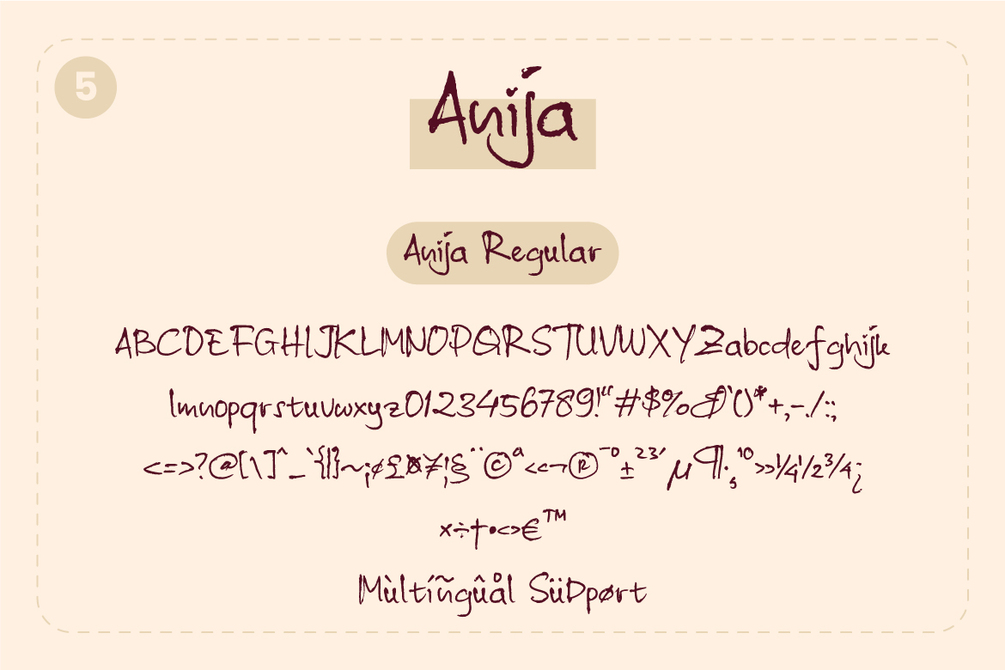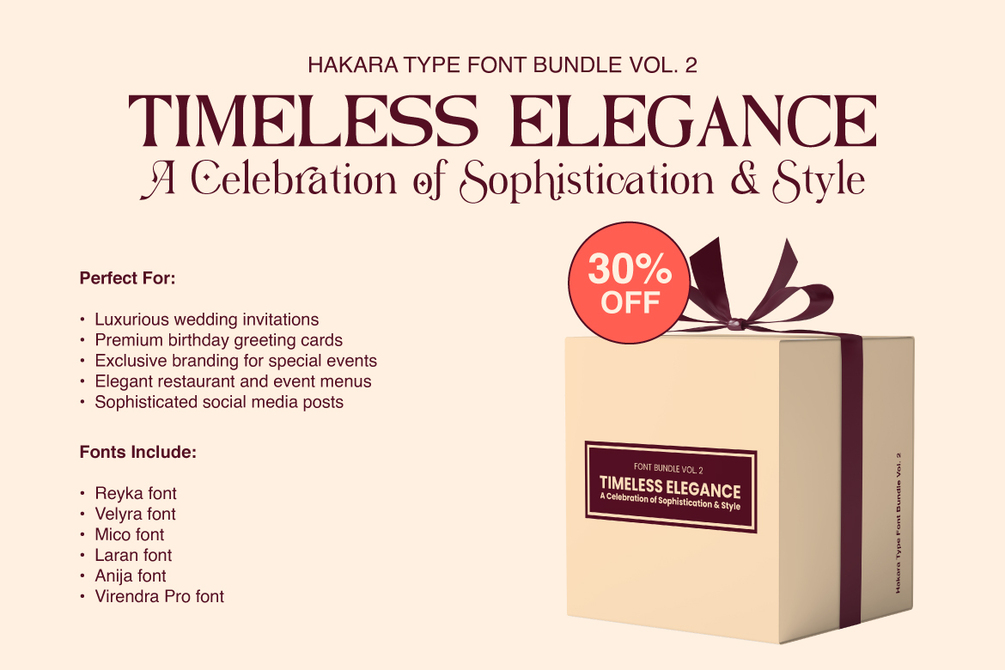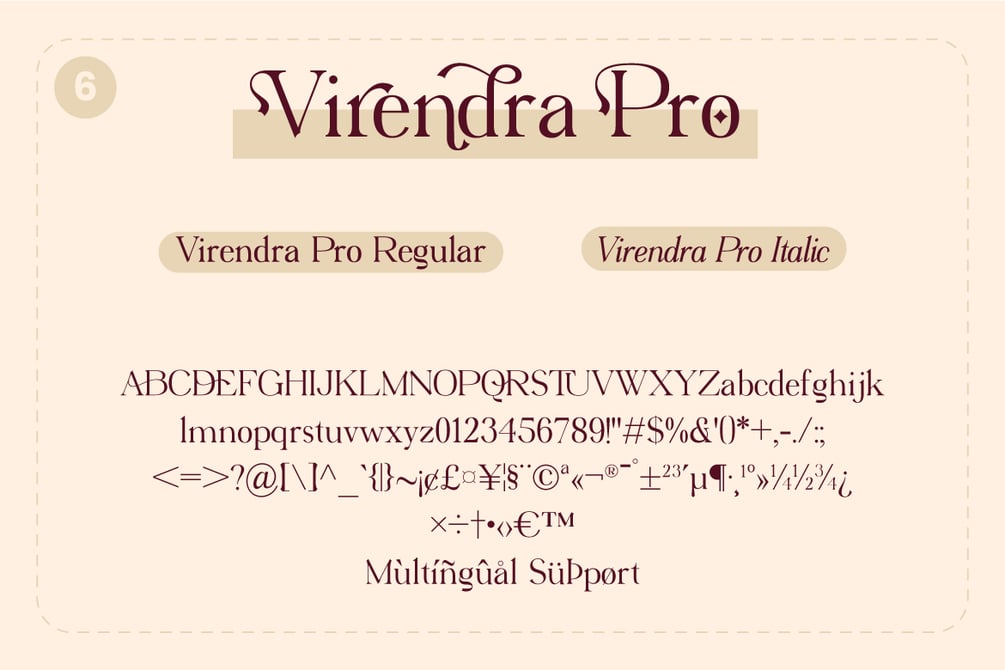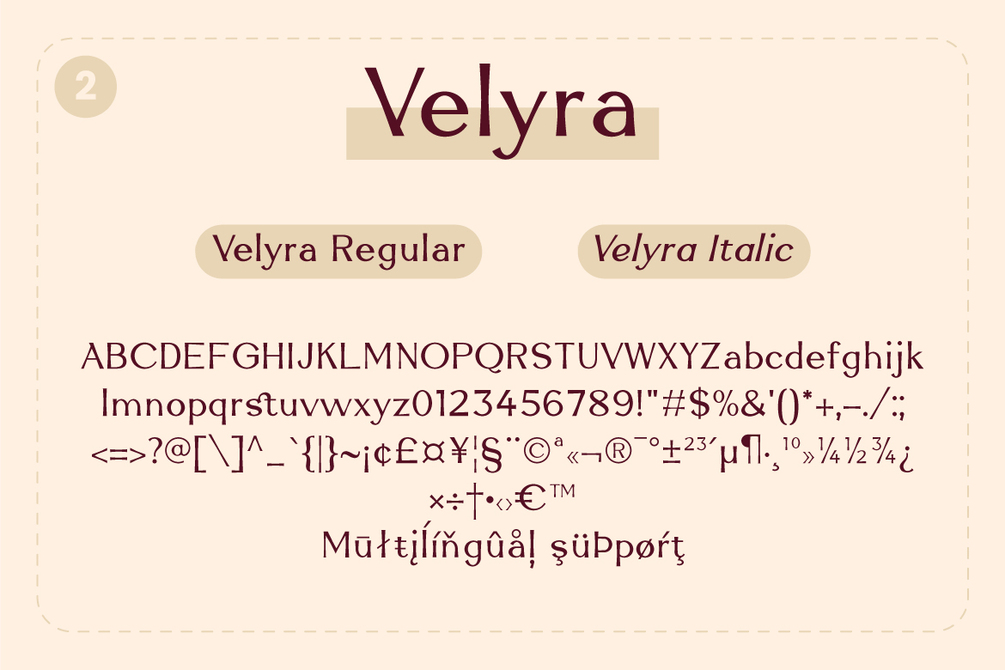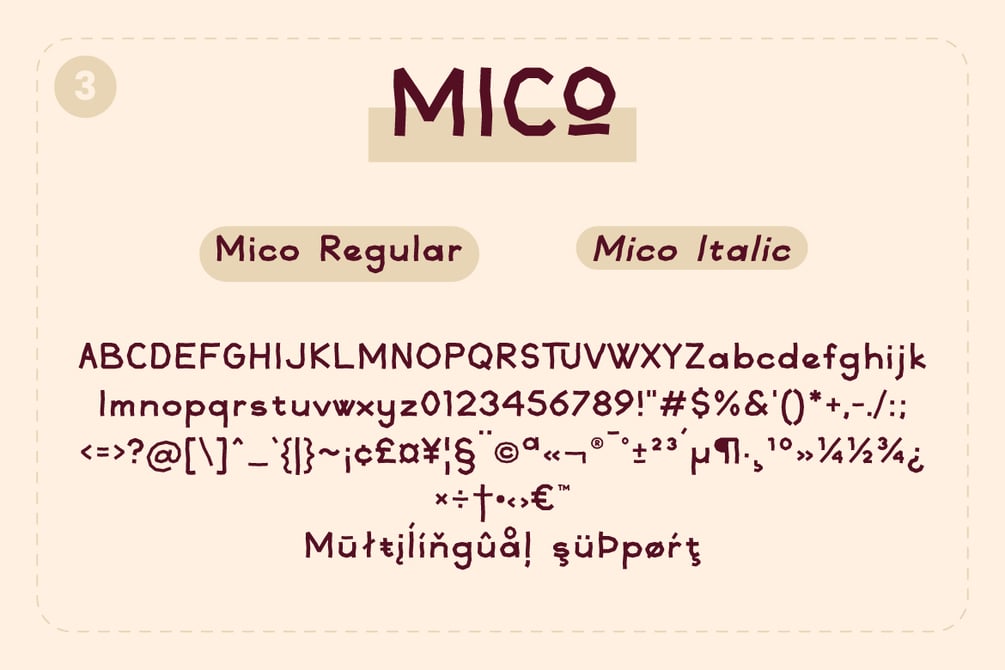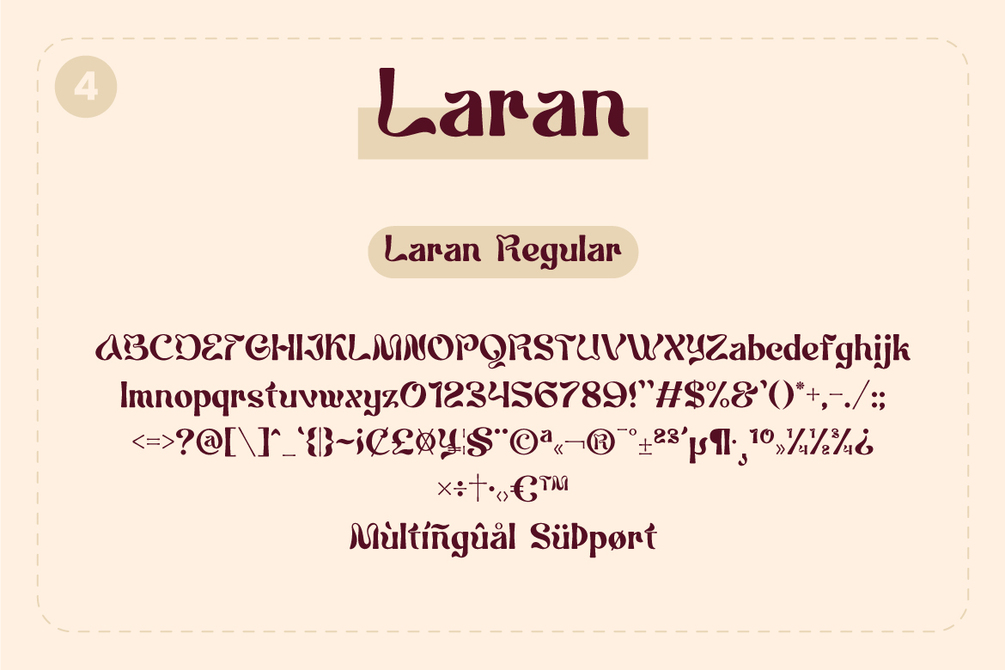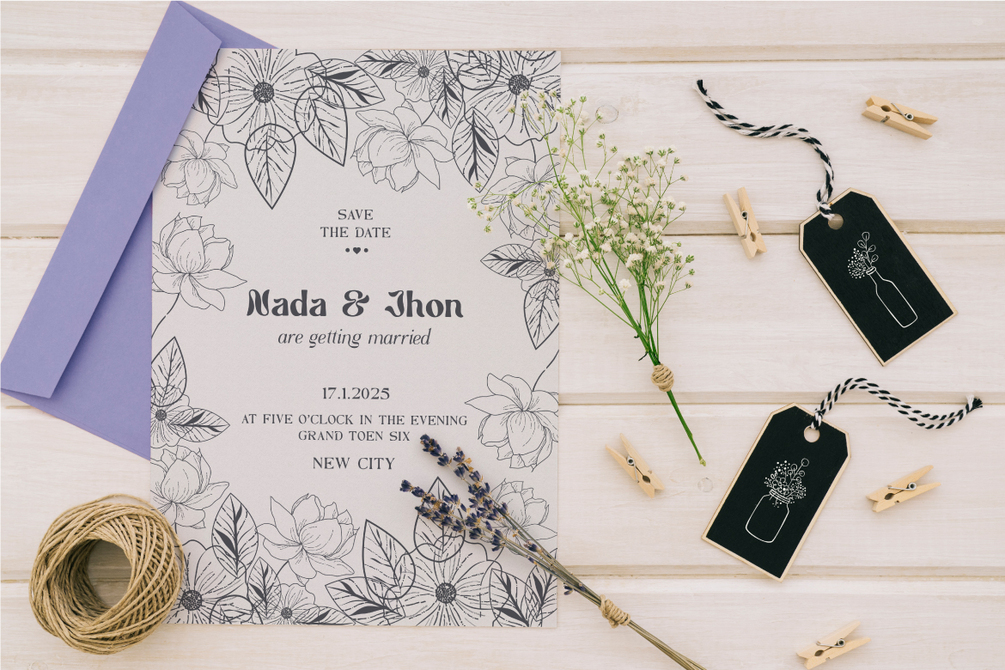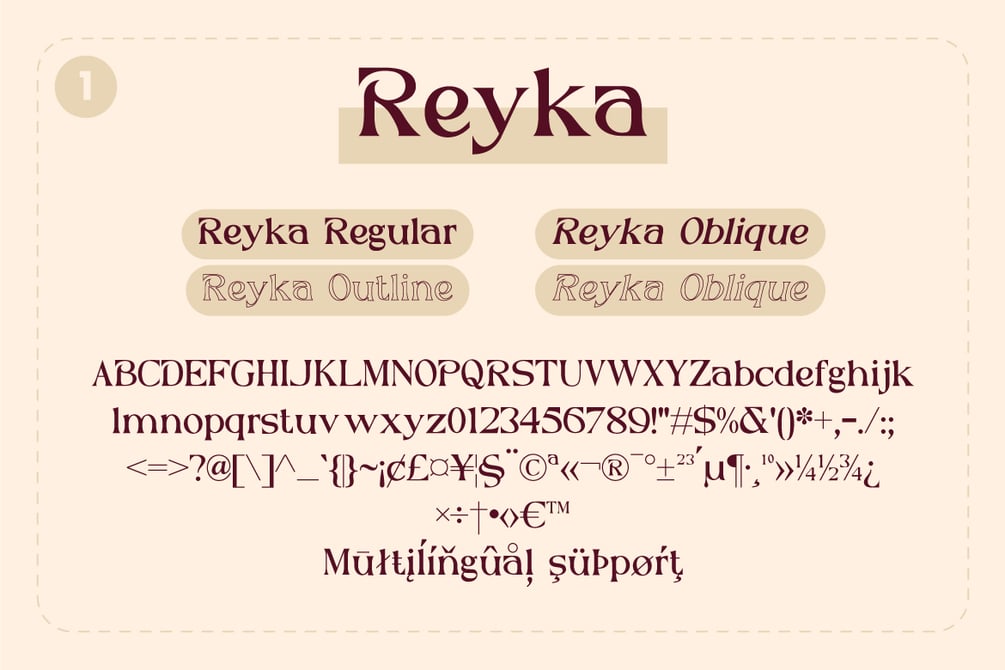
Timeless Elegance - Hakara Type font bundle Vol. 2
This bundle contains...
Reyka - Stylish Display Serif
Velyra - Modern Sans Serif
Mico - Playful Typeface
Laran - Display Font
Anija - Handwritten Font
Virendra Pro - Modern Serif Font
Perfect For:
- Luxurious wedding invitations
- Premium birthday greeting cards
- Exclusive branding for special events
- Elegant restaurant and event menus
- Sophisticated social media posts